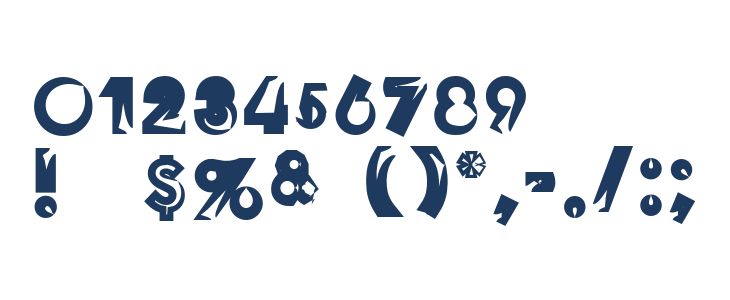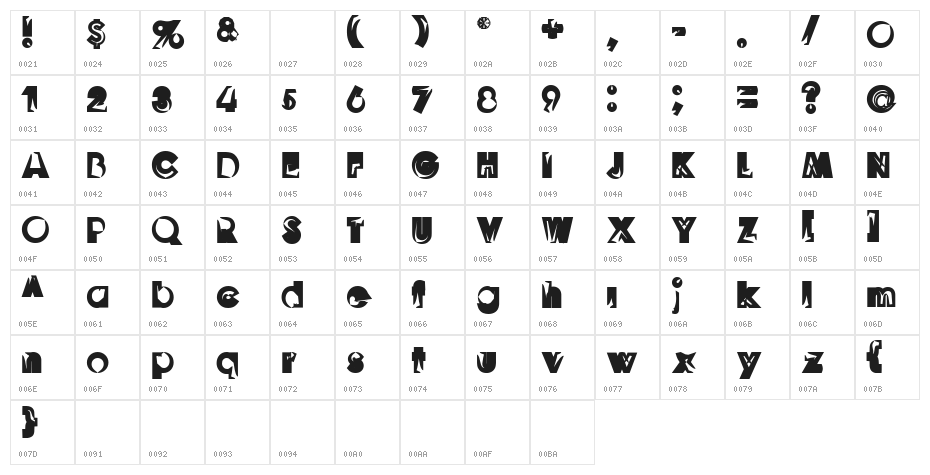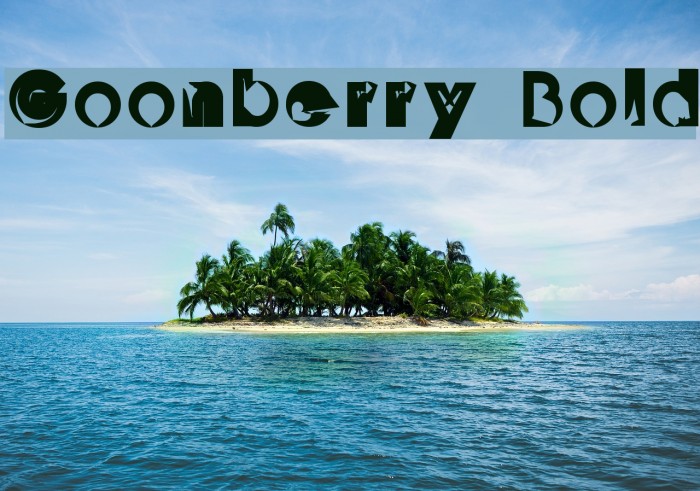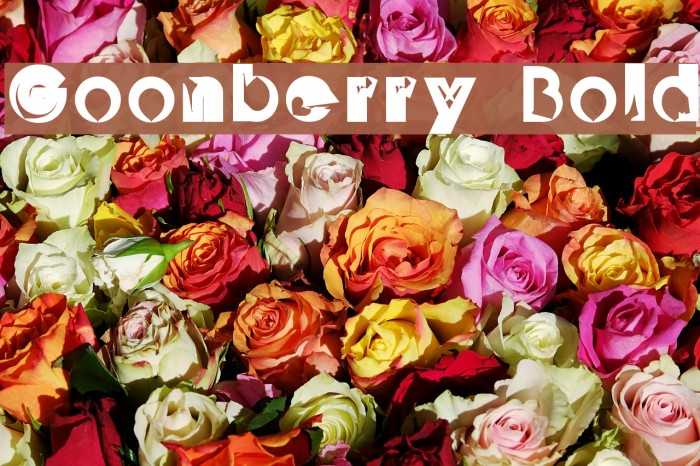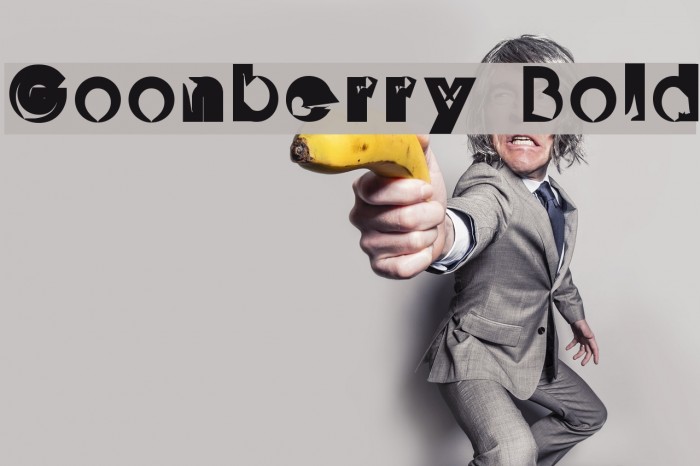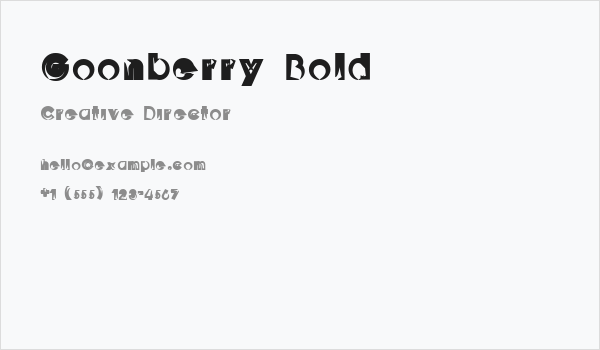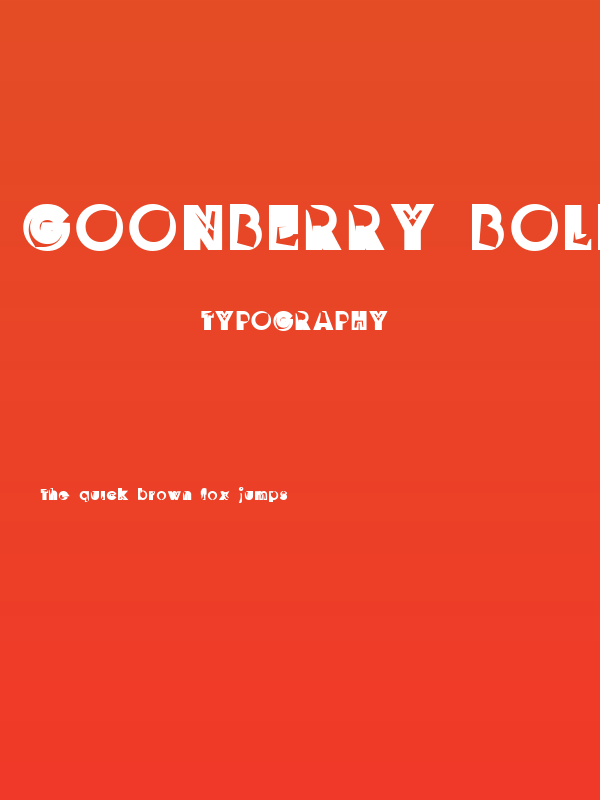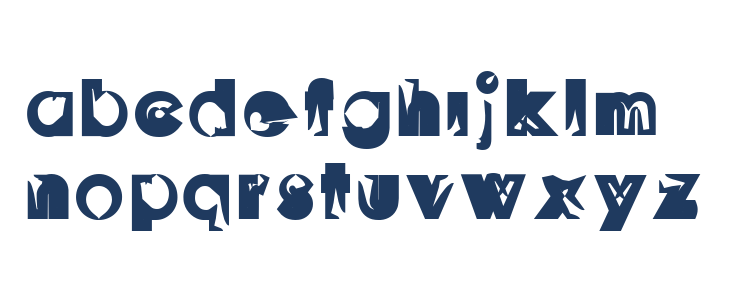
Goonberry Bold Font
Goonberry Bold Description
This bold and striking font features a highly decorative and abstract design, with each character incorporating unique geometric shapes and cutouts. The uppercase and lowercase letters maintain a consistent boldness, while the numbers and special characters follow the same artistic style. The font's playful and dynamic appearance makes it stand out, with each letter offering a distinct visual element that contributes to its overall aesthetic. The design is reminiscent of modern art, with sharp angles and contrasting shapes that create a sense of movement and energy.
| Proposed Projects | Ideal for posters, album covers, branding, and any project requiring a bold, artistic statement. |